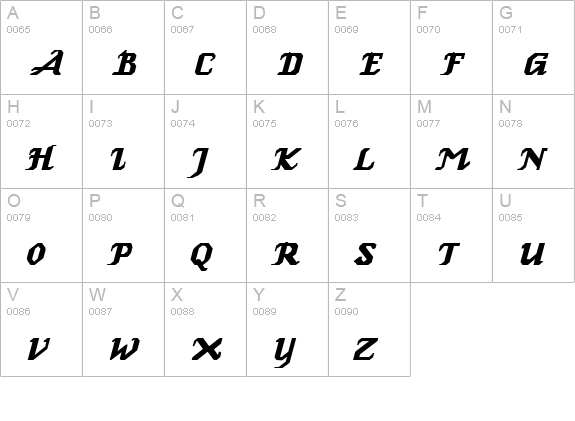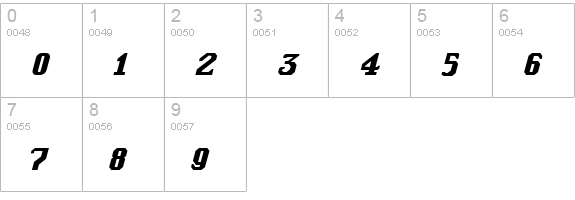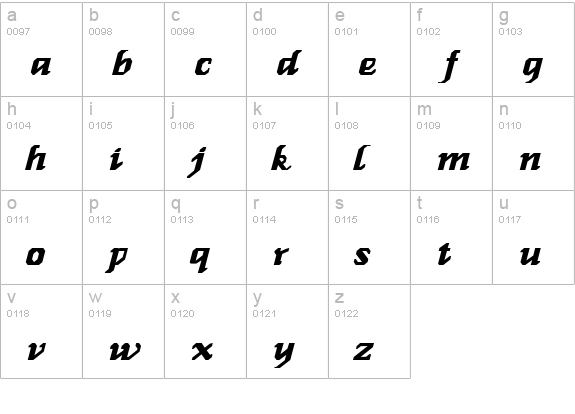
Genoa Italic Font Details
Genoa Italic is a distinctive, italic variant in the Genoa typeface family \xE2\x80\x94 well suited to design and typography projects.
Genoa Italic font exudes elegance and sophistication with its sleek and stylish appearance. The flowing curves and slanted design of this typeface add a touch of modernity to any project, making it perfect for creating eye-catching headlines or adding a touch of flair to your designs. The graceful strokes of Genoa Italic bring a sense of dynamism and movement, making it a versatile choice for both print and digital applications. Best of all, Genoa Italic is available for free download at FontsMarket.com. Whether you're a seasoned designer looking to add a new font to your collection or a budding creator seeking a fresh look for your projects, Genoa Italic is the perfect choice. With its refined aesthetic and effortless charm, this font is sure to elevate your designs and leave a lasting impression on your audience. Download Genoa Italic today and unleash your creativity with this sophisticated and stylish typeface.